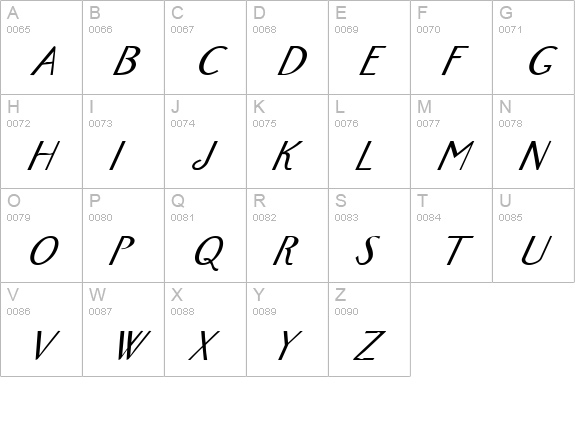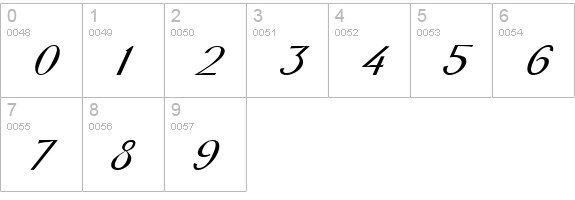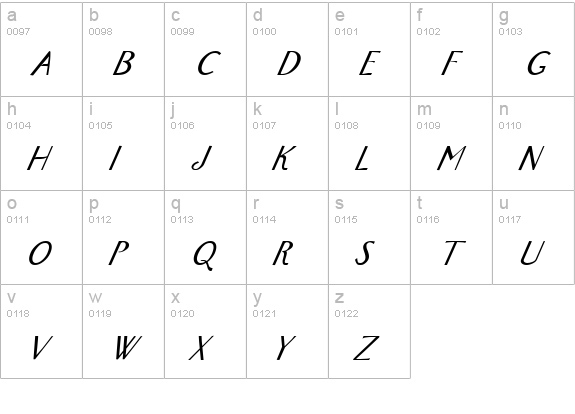
LausanneItalic font exudes elegance and sophistication with its sleek, stylish design. Its italicized form adds a touch of modernity, making it perfect for projects that require a contemporary flair. The flowing curves and unique letter shapes of LausanneItalic font make it a versatile choice for a wide range of design purposes, from branding to editorial layouts. The best part? LausanneItalic font is available for free download at FontsMarket.com. This means you can easily access this stunning typeface and use it in your projects without any cost. Don't miss out on the opportunity to enhance your designs with the timeless beauty of LausanneItalic font - download it today and let your creativity shine.